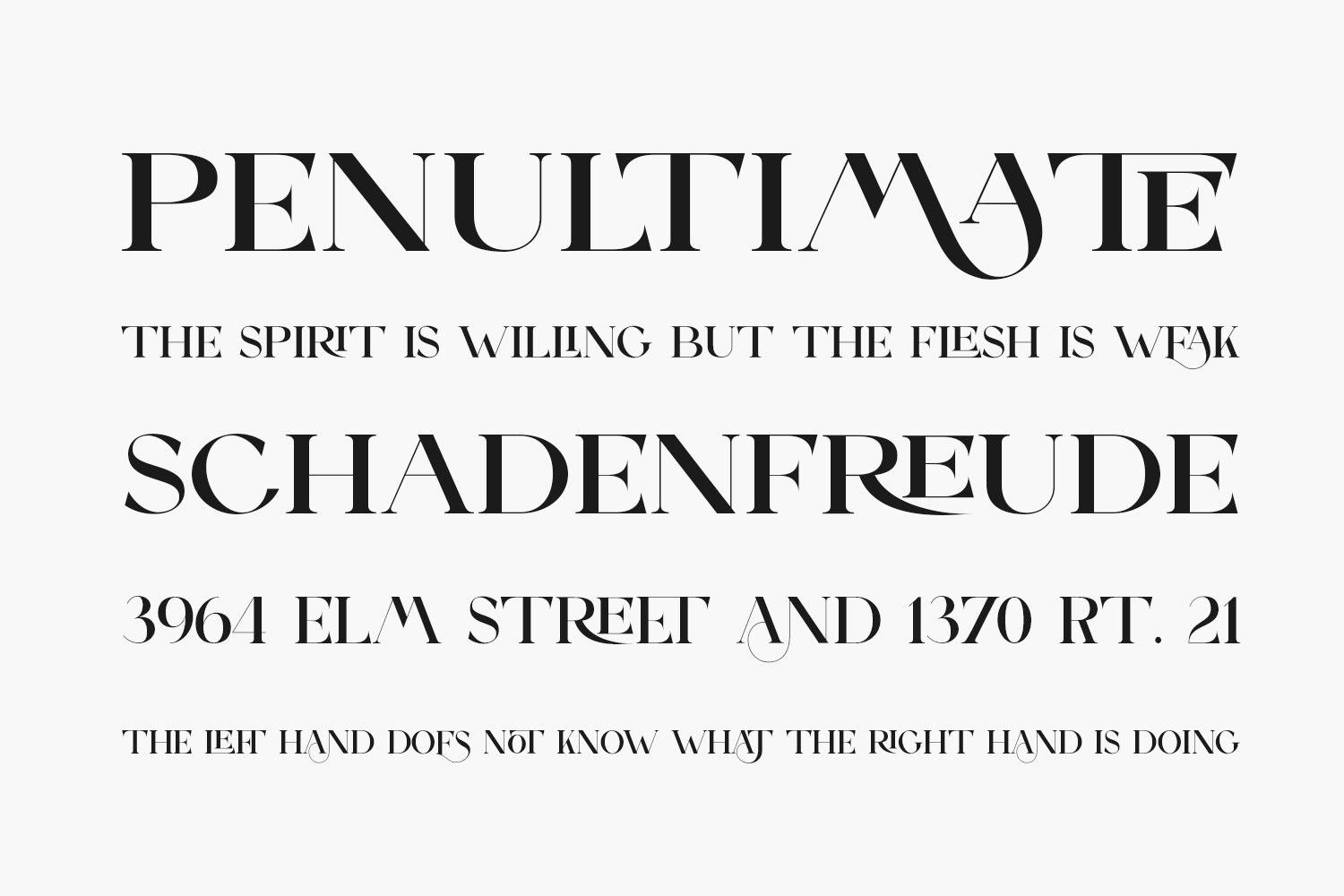
Matiott Elegant Free Font is a bold and authentic serif font. Expertly designed to make your creation look out of this world, this font will look gorgeous on a variety of ideas. Matiott Elegant Free Font was designed by 177Studio and is free for personal use only. Please purchase the full version for commercial use.